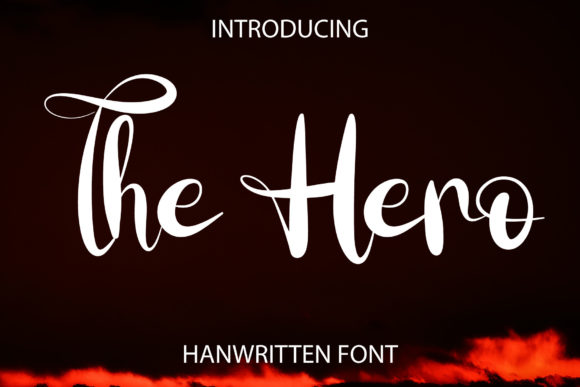
**The Hero Font: A Dazzling Script for Signatures**
Indulge in the allure of The Hero, a captivating script font that will grace your creations with undeniable elegance. Meticulously crafted by the visionary hands of fahmistudio99, this font embodies the very essence of artistry. Its highly detailed strokes dance across the page, inviting you to explore the realm of expressive typography.
Whether adorning personal letters, adding a dash of flair to invitations, or crafting logos that command attention, The Hero stands ready to elevate your designs. Each letterform is a masterpiece, imbued with a unique character that breathes life into your words.
Embrace the boldness of this signature font, and watch as your creations soar to new heights. Let The Hero be your guiding light, illuminating the path towards captivating designs that leave an indelible mark.
**Dive into the World of The Hero Font**
- Captivating script font crafted with meticulous detail
- Perfect for adding a touch of elegance to any creation
- Ideal for personal letters, invitations, logos, and more
- Unleash your creativity and let your designs shine
**Why Choose The Hero Font?**
- Amplify the impact of your words with its enchanting script
- Elevate your designs to new heights with its undeniable charm
- Stand out from the crowd with its unique and eye-catching style
- Experience the joy of effortless self-expression
**Empower Your Creativity with The Hero Font**
As a script font designed specifically for signatures, The Hero empowers you to create authentic and personalized expressions that resonate with your audience. Its versatility knows no bounds, making it an indispensable tool for designers and creatives alike.
Unleash the power of The Hero Font today and embark on an artistic journey where your words become works of art.